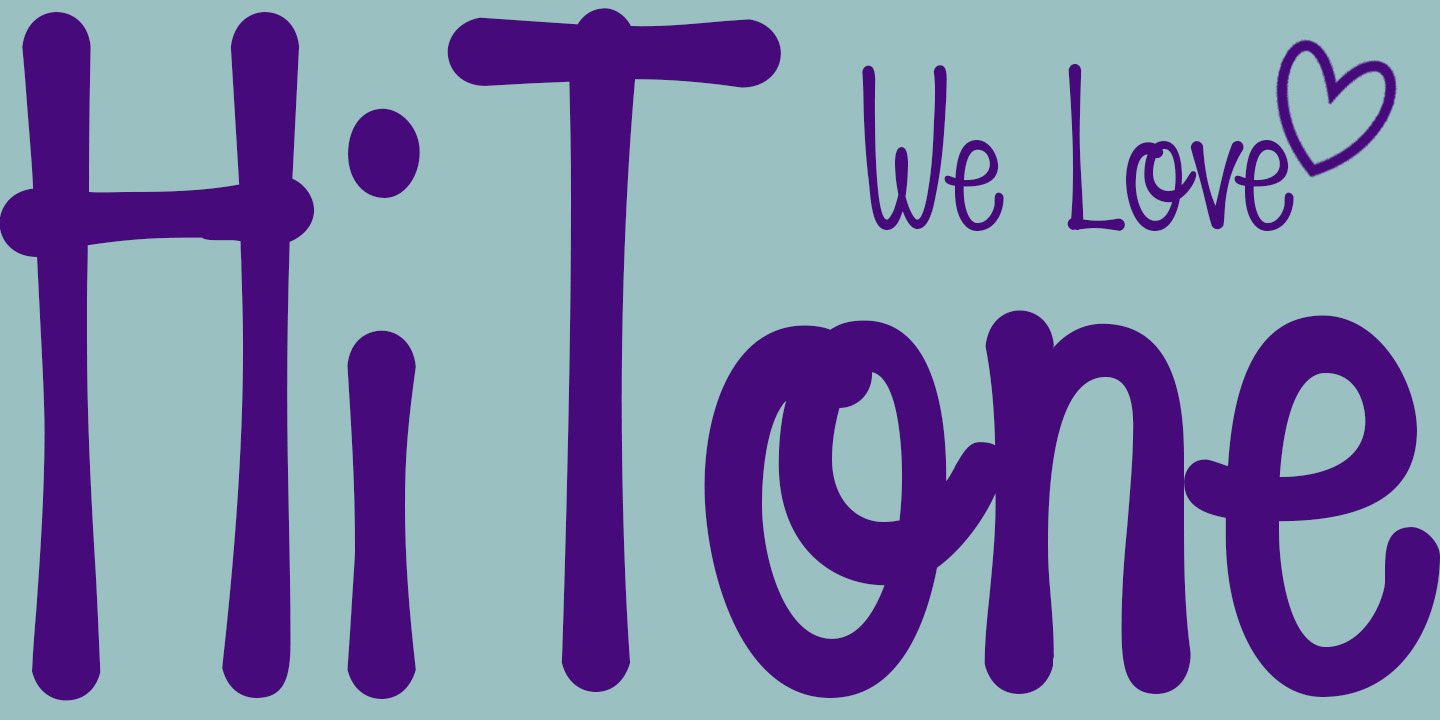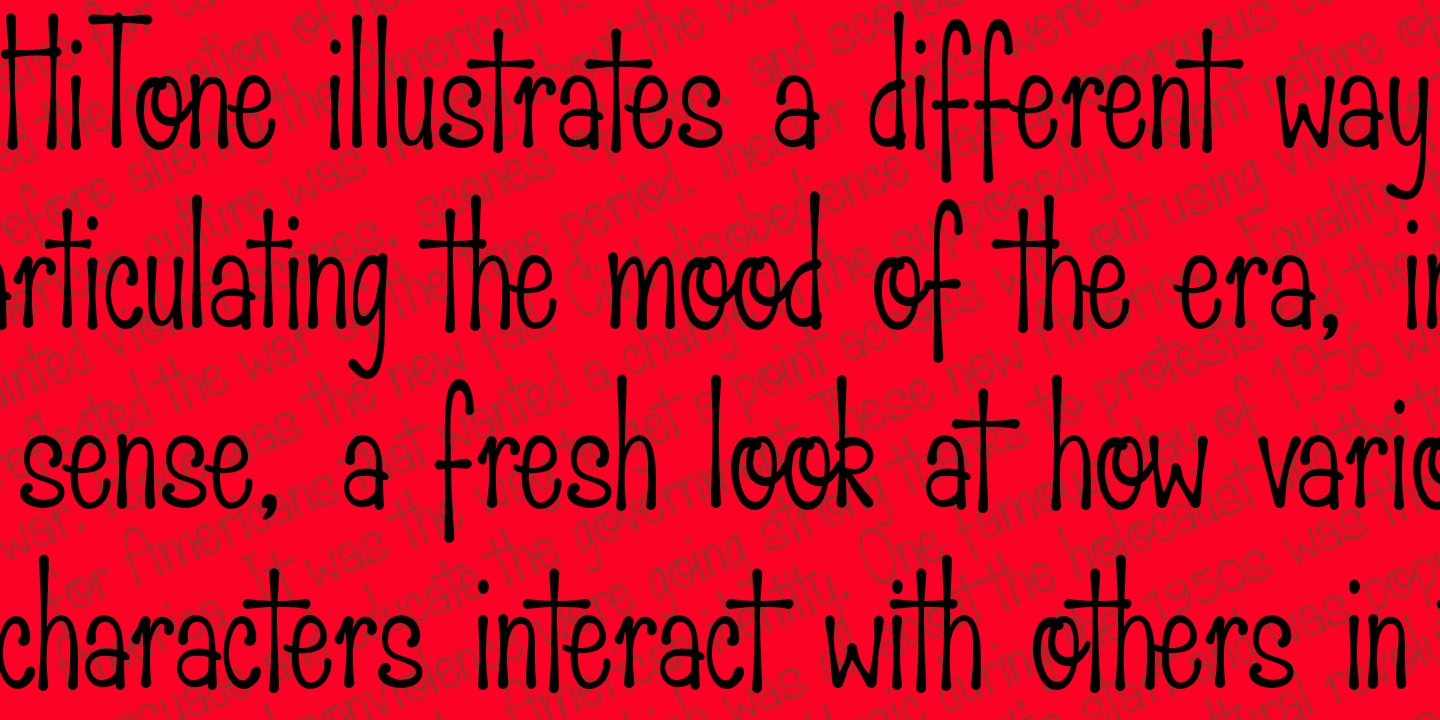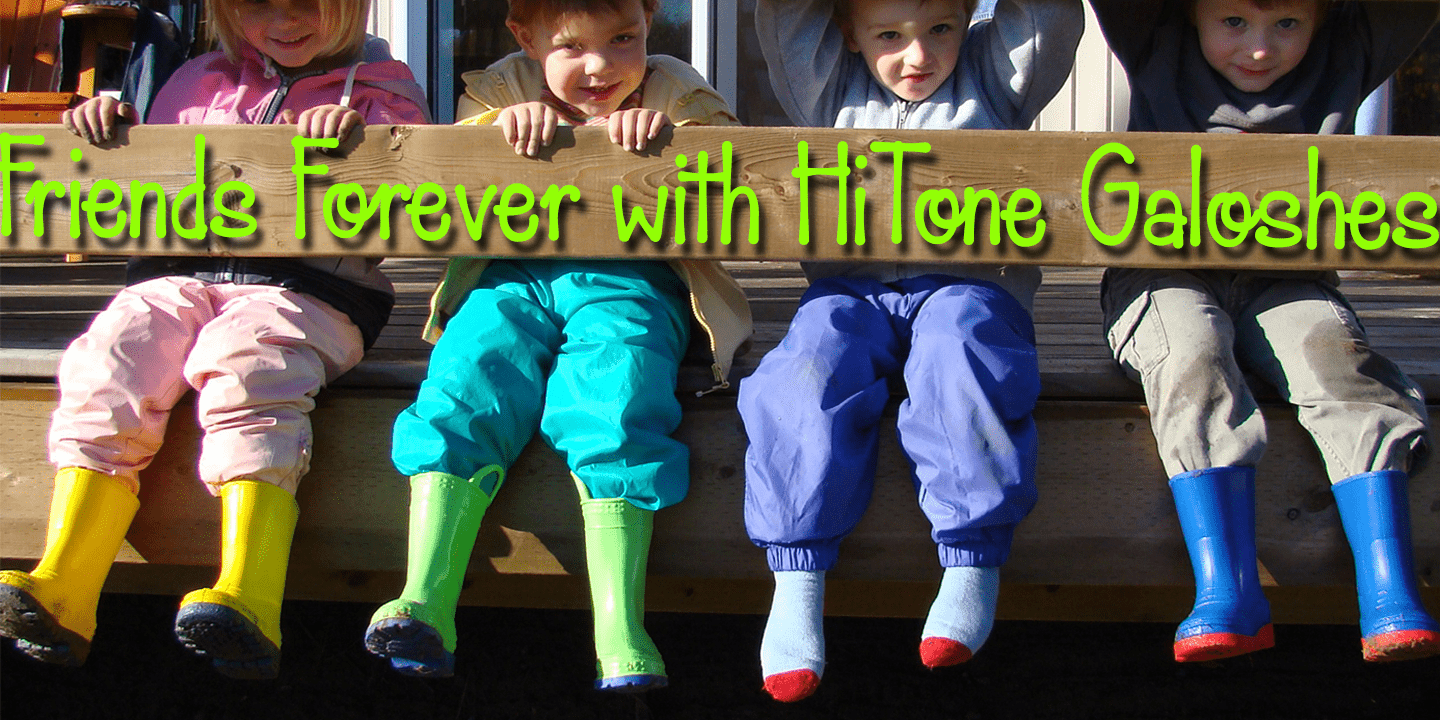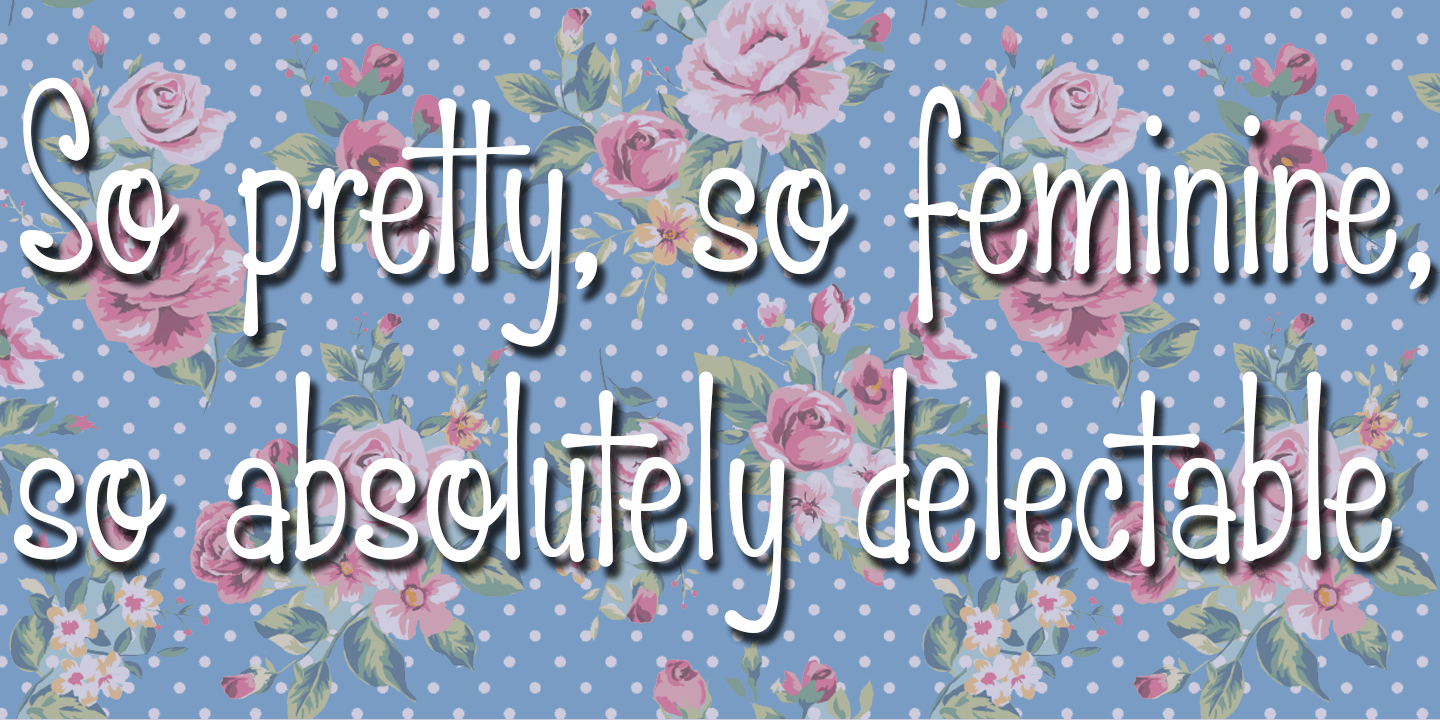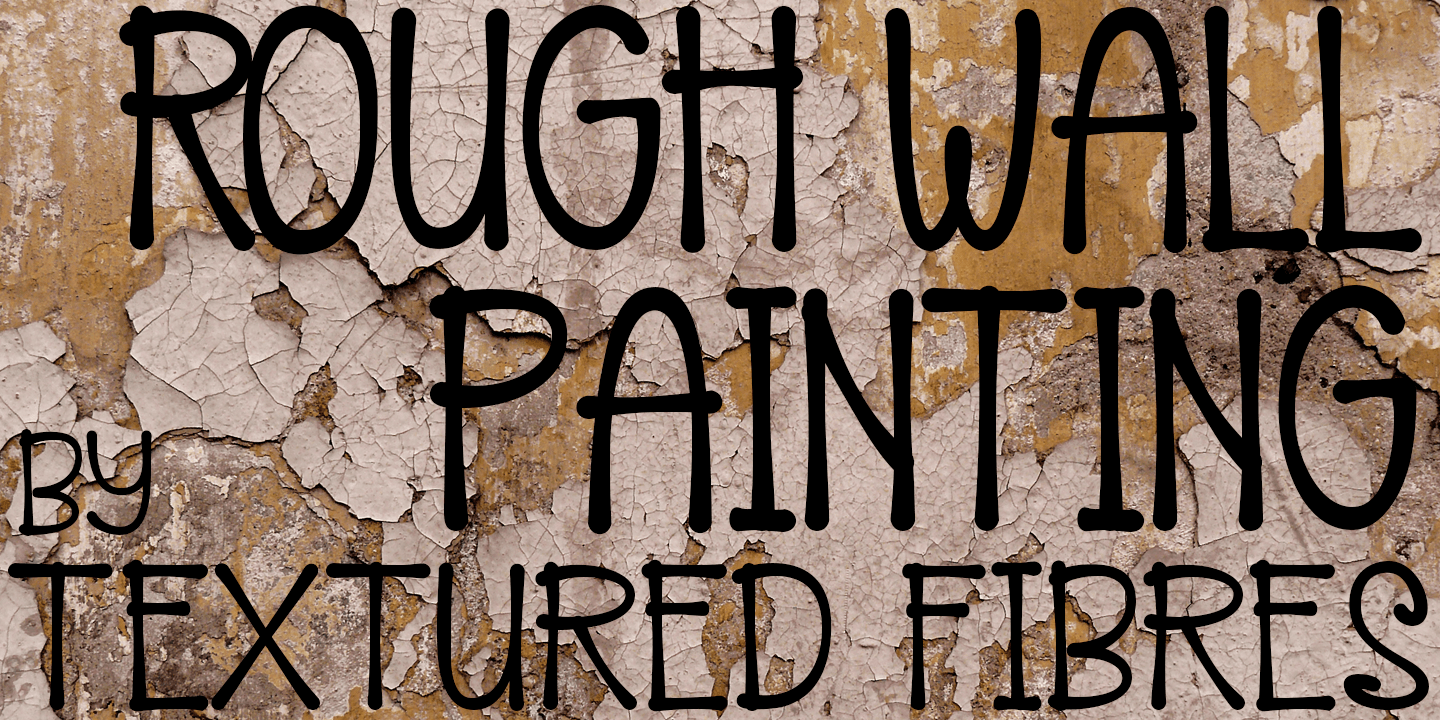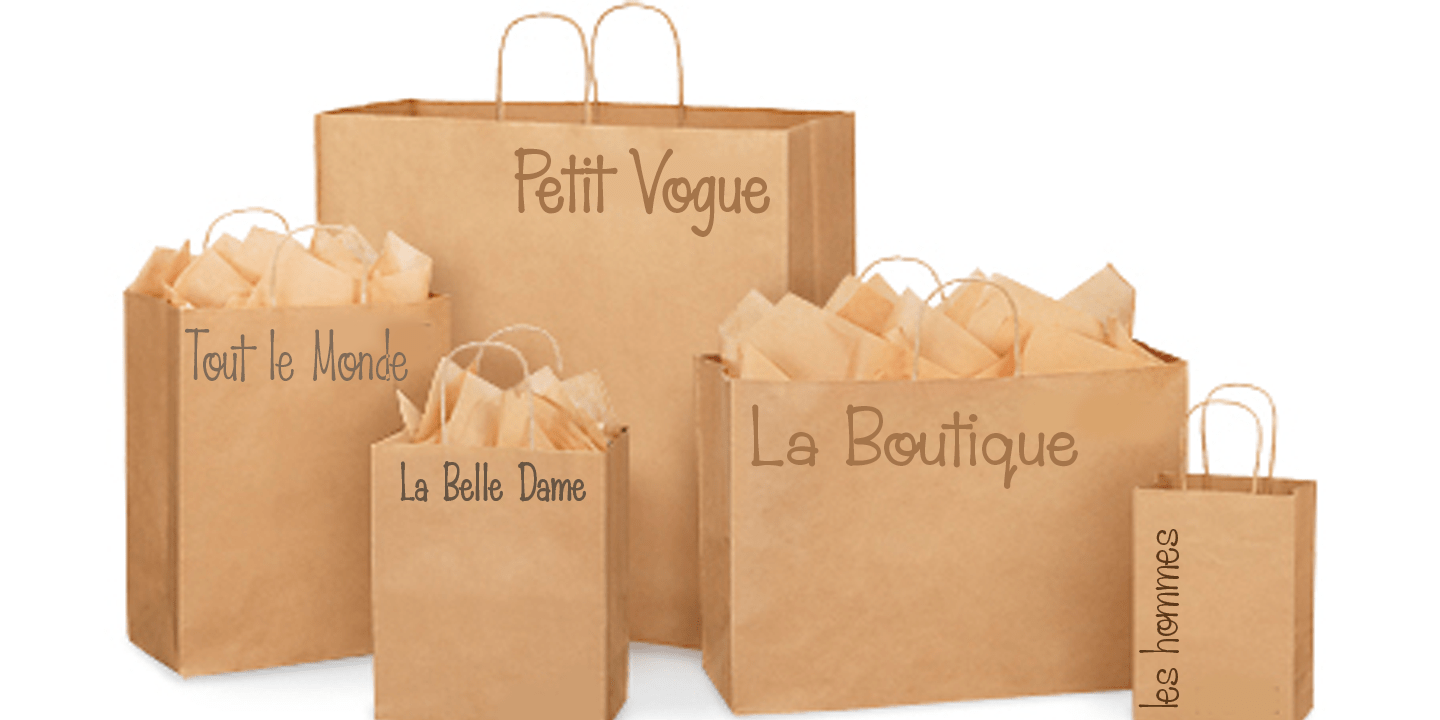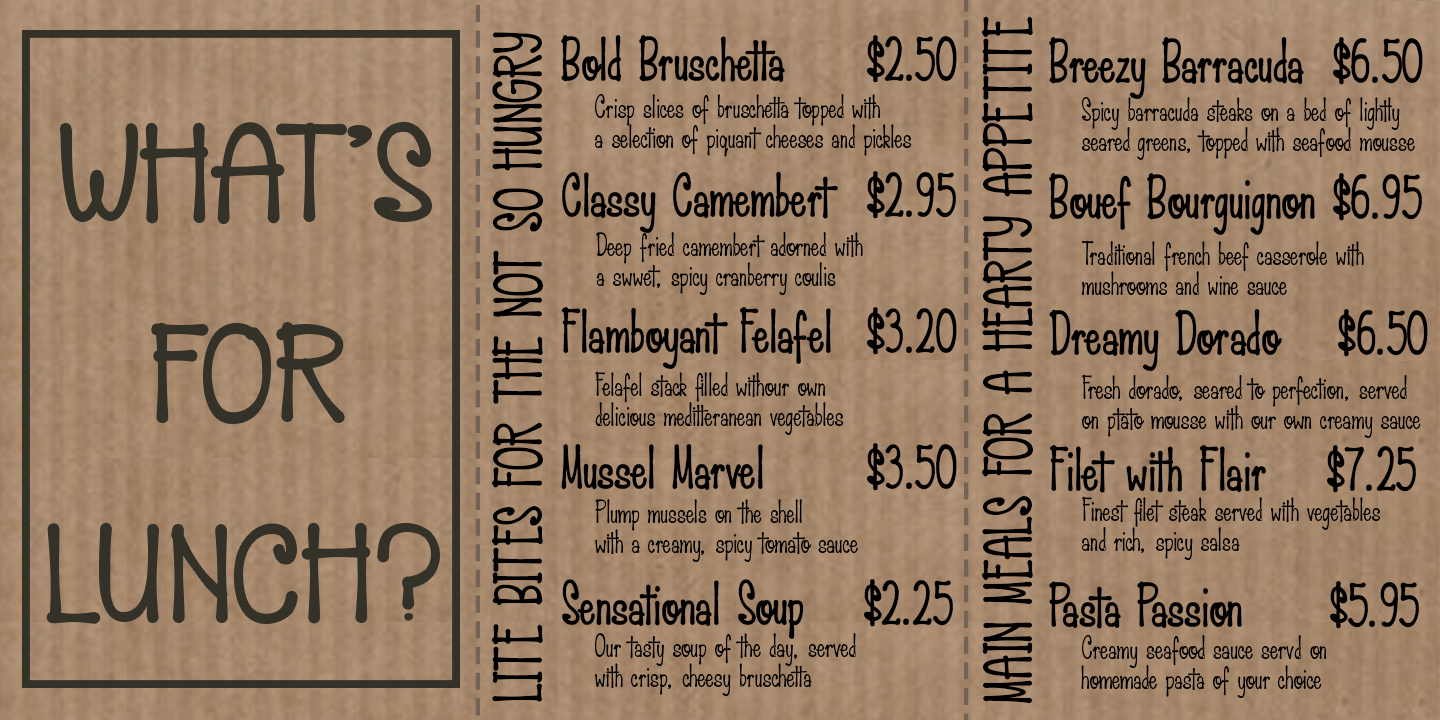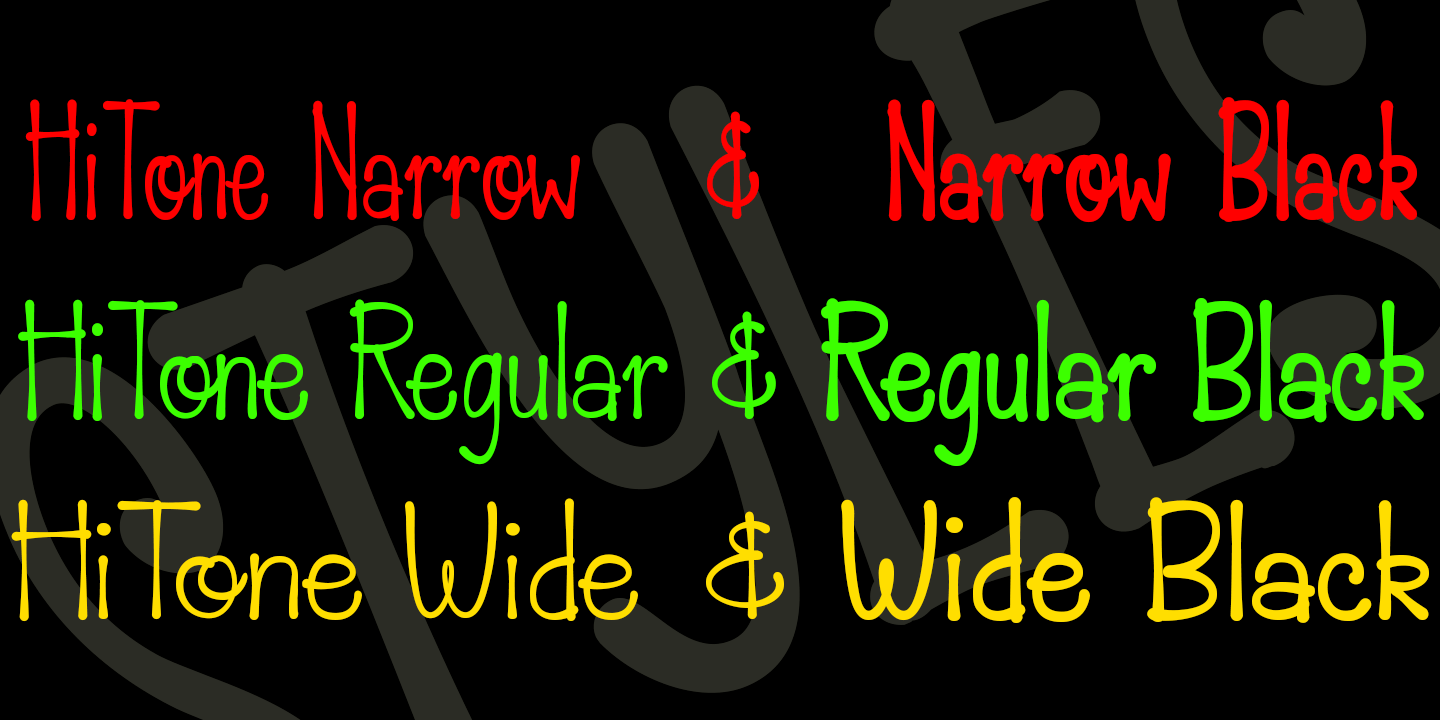
HiTone
It comes in three widths, the narrowest of which enables text to be placed compactly within a limited space. The widest, on the other hand, increases readability while maintaining the same stroke weight. In addition, each width comes in two weights, regular and black, enabling the user to provide emphasis or headline display without changing the essential style of writing. The font is most useful as a stylish text font.
The font has all the features of a fully professional typeface. Language support includes all European character sets.